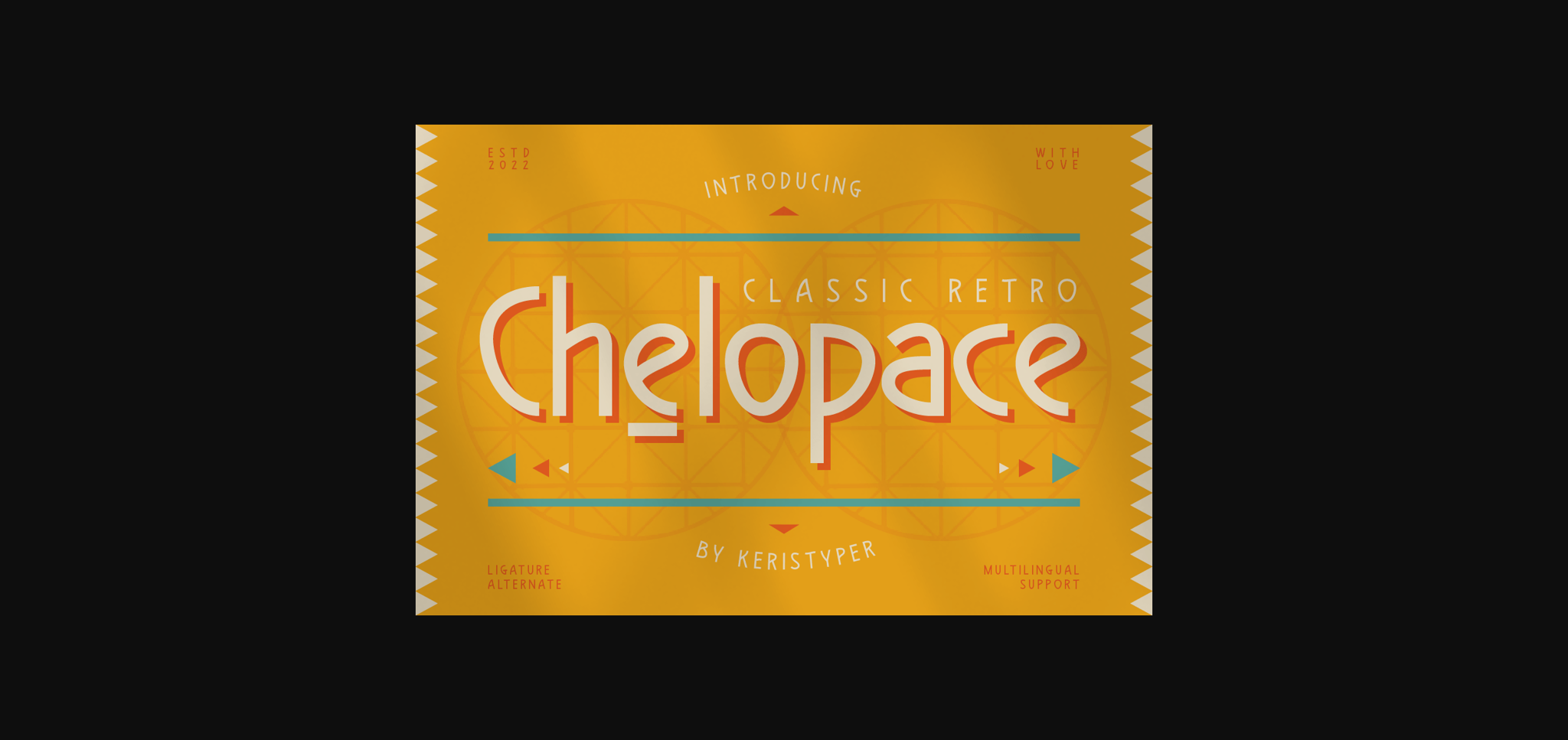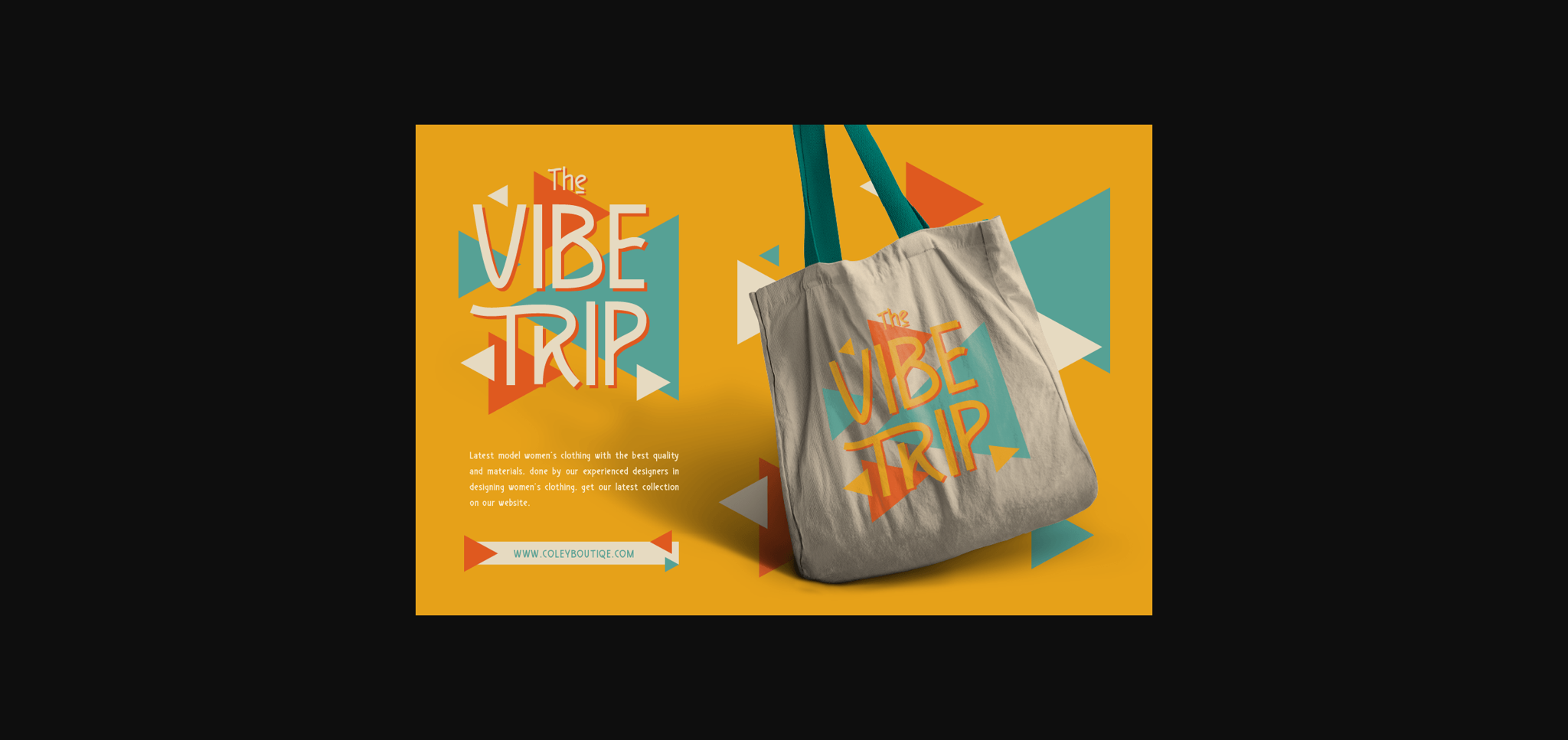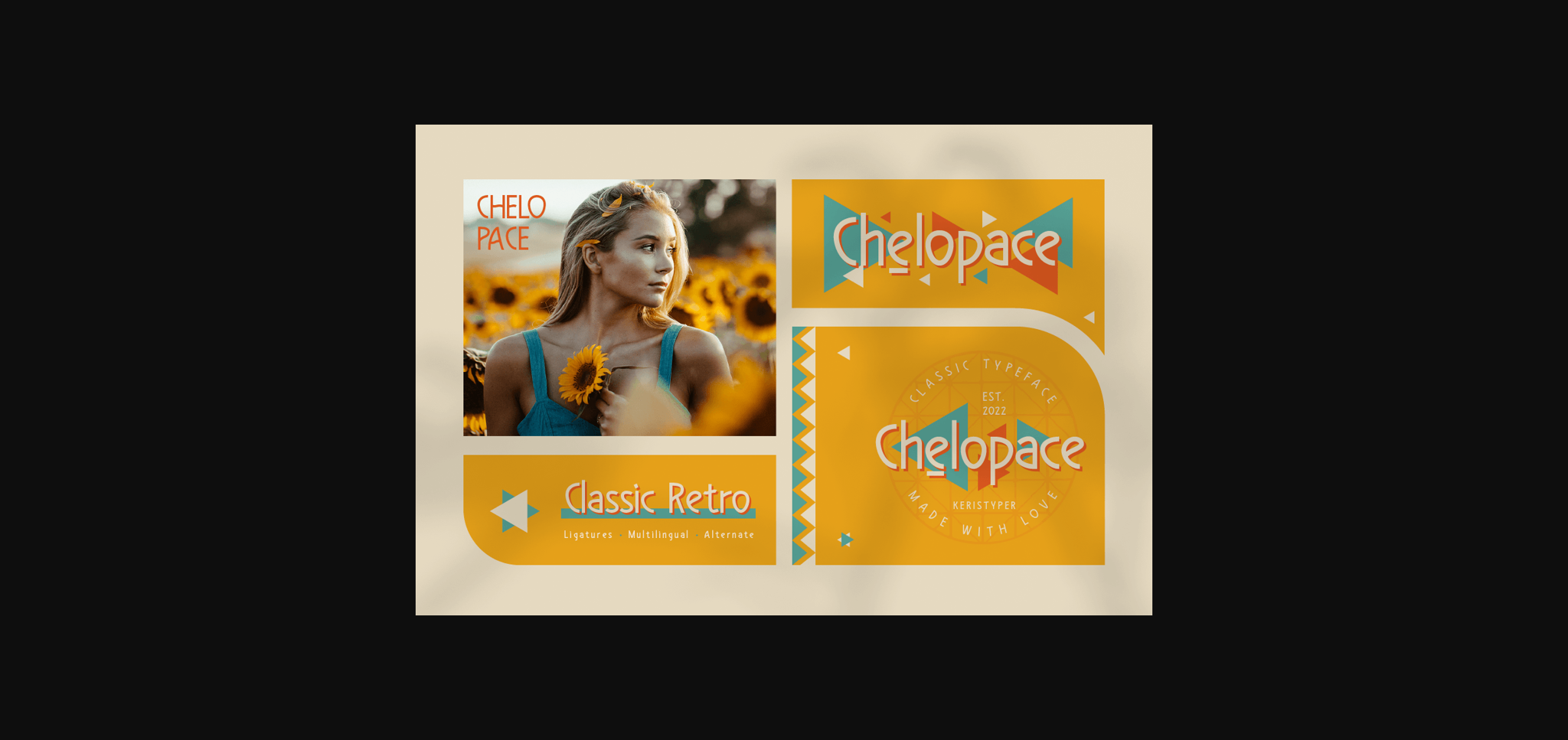
About Chelopace Font
Introducing Chelopace, a classic retro blend between clean and vintage-themed type work, inspired by old advertisement letters. This font is good for logo design, Social media, Movie Titles, Books Titles, short text even long text, and good for your secondary text combined with sans or serif.